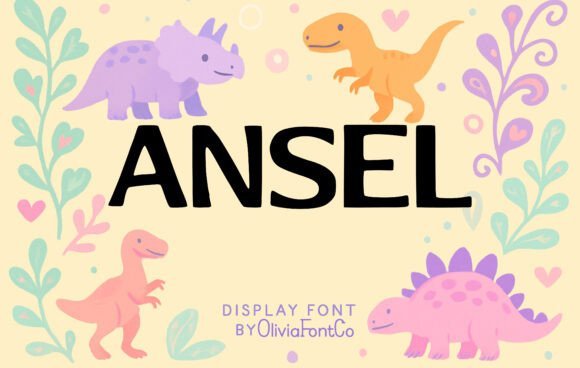
The Perfect Font for Your Creative Masterpiece
Have you ever stared at a blank page, trying to come up with the perfect idea, only to have it all come together in a flash of inspiration? That’s what it feels like to work with the right tools, and that’s exactly what the Ansel Font is designed to provide. This versatile font is the perfect companion for any creative project, from magazine headlines to social media posts.
As a designer, you know how important it is to have a font that’s not only visually appealing but also easy to read. The Ansel Font delivers on both fronts, making it a valuable addition to any design arsenal. Whether you’re working on a branding project, creating wedding invitations, or designing t-shirts, this font is sure to elevate your ideas to new heights.
Ansel Font Key Features
- Font Family: Ansel is a modern sans-serif font family.
- Font Sizes: Available in multiple weights (Thin, Light, Regular, Medium, Bold, Black) and styles (Italic, Oblique), making it suitable for various design applications.
- Unique Characteristics: Ansel features a clean and minimalistic design with subtle rounded edges, making it ideal for modern and professional designs.
Ansel Font Review
Overall, I have mixed feelings about the Ansel Font. Here are my thoughts:
- The Ansel Font is highly legible, making it suitable for body text. Its clear lines and balanced spacing ensure that readers can easily follow along.
- The font has a unique personality, with a touch of elegance that sets it apart from more common sans-serif fonts.
- Ansel Font supports multiple weights, from Light to Extra Bold, allowing designers to create visually appealing typographic hierarchies.
- One major drawback is that the Ansel Font may not be the best choice for small text sizes, as its lines can become blurry and difficult to read.
- Additionally, the font’s distinctive personality may not be suitable for every project. Some designers may find it too ornate or distracting.
Overall, the Ansel Font is a solid choice for designers who value elegance and readability. While it may not be perfect for every project, it’s definitely worth considering for body text and titles where a touch of sophistication is desired.
For optimal results, use Ansel Font in conjunction with a clean and minimalistic design aesthetic.
Avoid using Ansel Font in small text sizes, as it may become difficult to read.
Experiment with different font combinations to create a unique and visually appealing design.
Ansel Font is ideal for:
- Logo design
- Editorial design
- Web design
Alternatives to Ansel Font for Designers
Montserrat is a popular sans-serif font designed by Julieta Ulanovsky. It’s ideal for use in digital and print designs where a clean and modern look is desired. Montserrat is more geometric in appearance compared to Ansel Font, which has a more rounded feel.
Lato is a sans-serif font designed by Łukasz Dziedzic. It’s suitable for use in a wide range of designs, from headings to body text, and is particularly effective for creating a clean and minimalistic look. Lato is more condensed than Ansel Font, making it ideal for use in smaller spaces.
Open Sans is a modern sans-serif font designed by Steve Matteson. It’s highly legible and suitable for use in digital and print designs. Open Sans is more rounded in appearance compared to Ansel Font, which has a more geometric feel.
Inter is a sans-serif font designed by Rasmus Andersson. It’s highly legible and suitable for use in digital and print designs. Inter is more versatile than Ansel Font, with a wide range of weights and styles available, making it ideal for use in a variety of design contexts.
Ansel Font Creative Project Ideas
Project 1: Whimsical Woodland Typography
Create a dreamy, mystical atmosphere by combining Ansel Font with watercolor illustrations and pastel colors.
To use Ansel Font in this project:
- Choose a delicate Ansel Font style, such as Ansel Regular or Ansel Light.
- Use a watercolor brush effect to give the text a soft, ethereal look.
- Combine Ansel Font with illustrations of whimsical woodland creatures, such as owls and foxes.